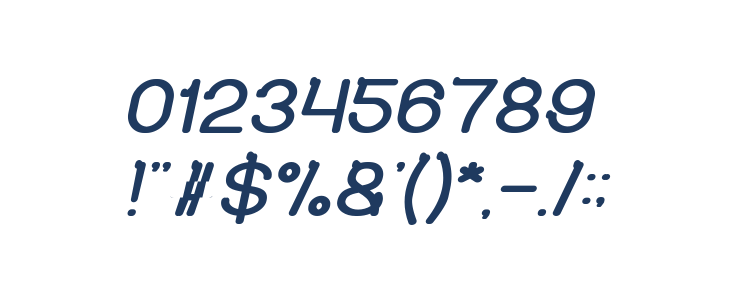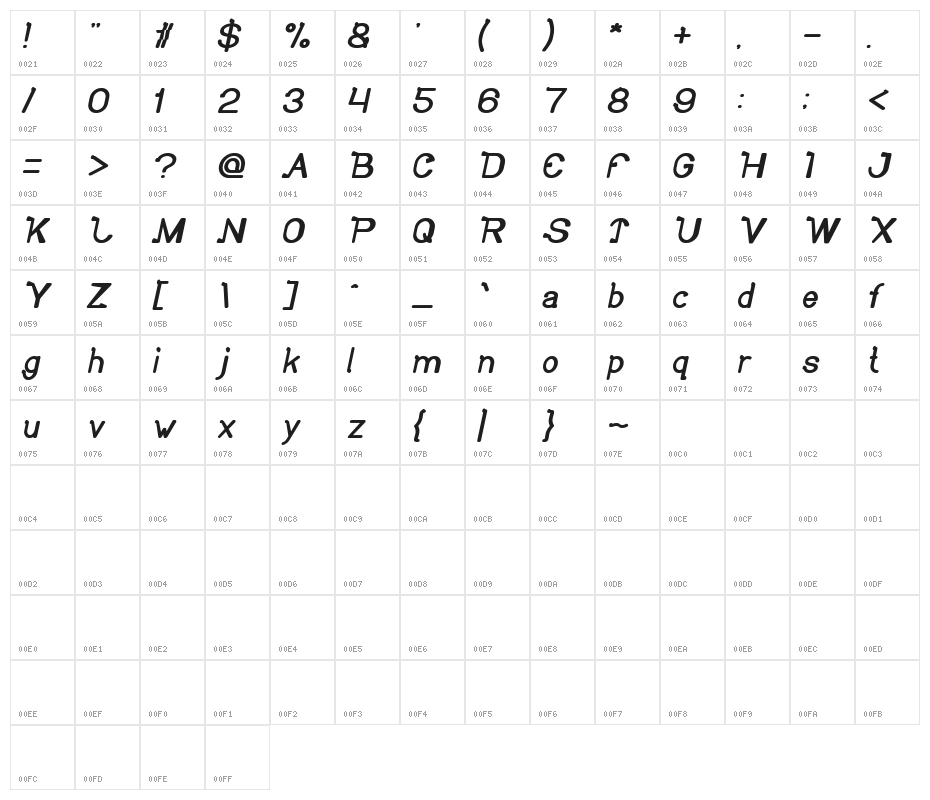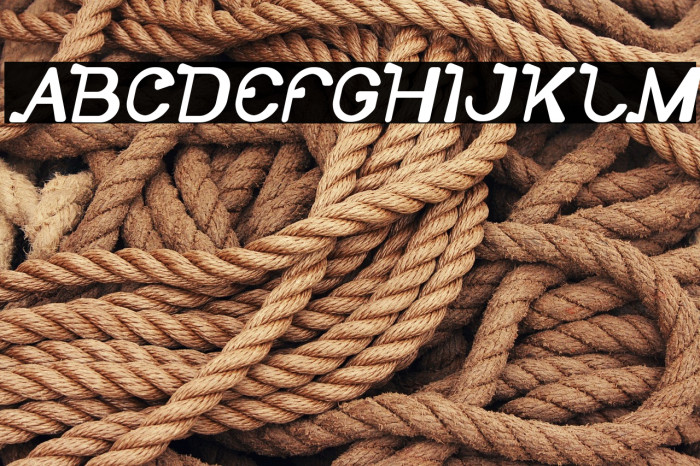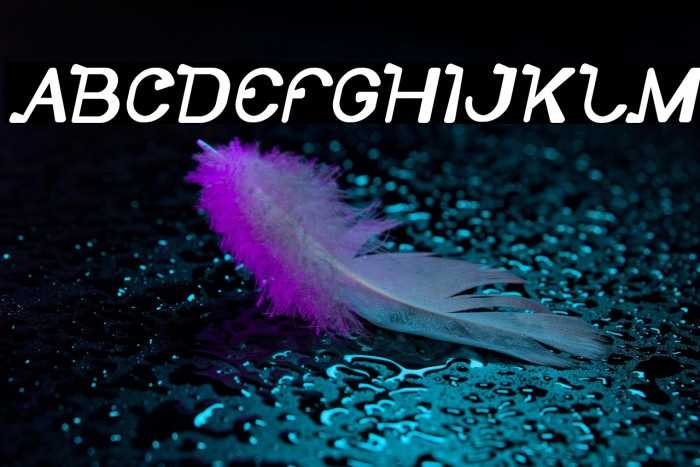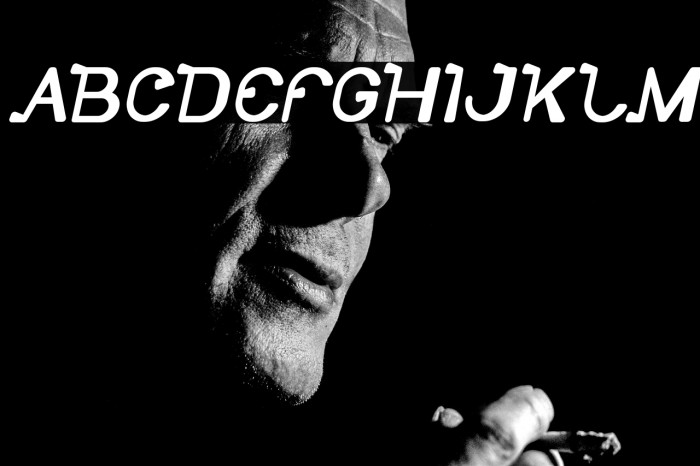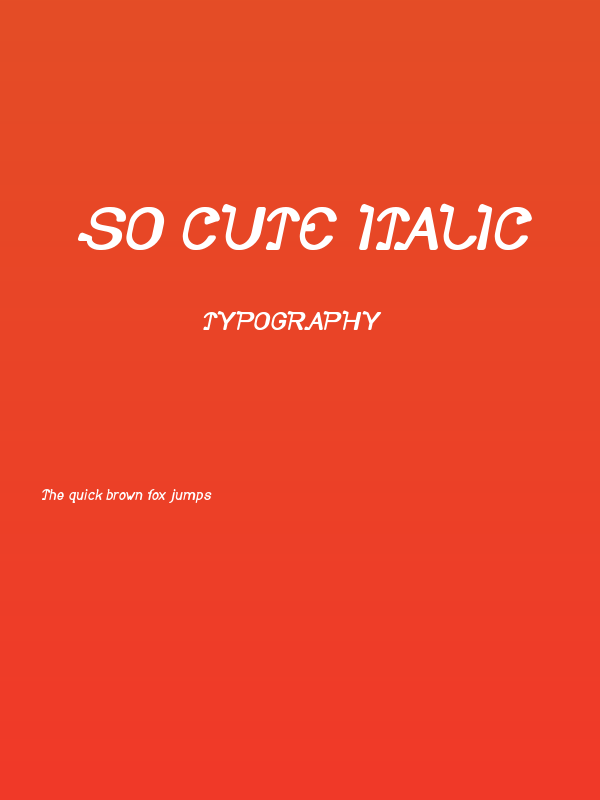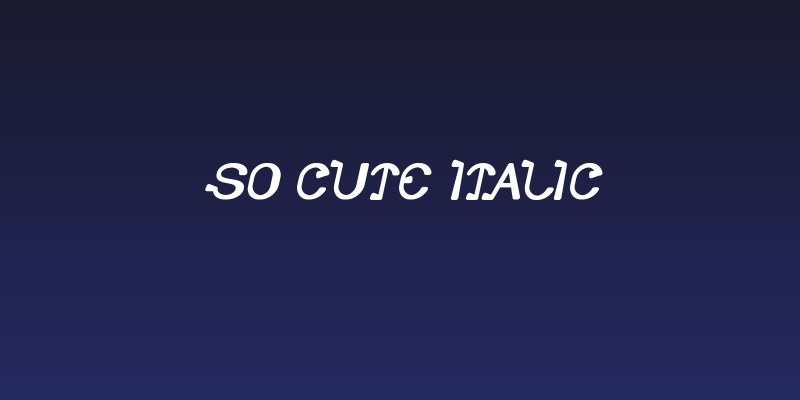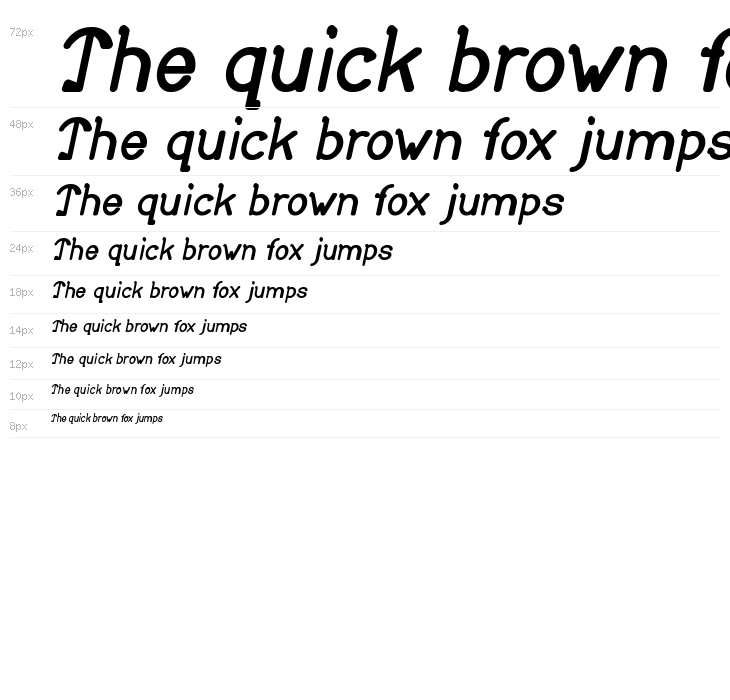
So Cute Italic Font
So Cute Italic Description
This playful and charming font features a delightful italic style that adds a whimsical touch to any design. The characters are rounded and smooth, with a consistent flow that creates a sense of movement and energy. The uppercase letters are bold and slightly slanted, while the lowercase letters maintain a friendly and approachable appearance. Numbers and special characters are designed with the same playful aesthetic, making this font versatile for various uses. Its unique style makes it stand out, perfect for projects that require a touch of fun and creativity.